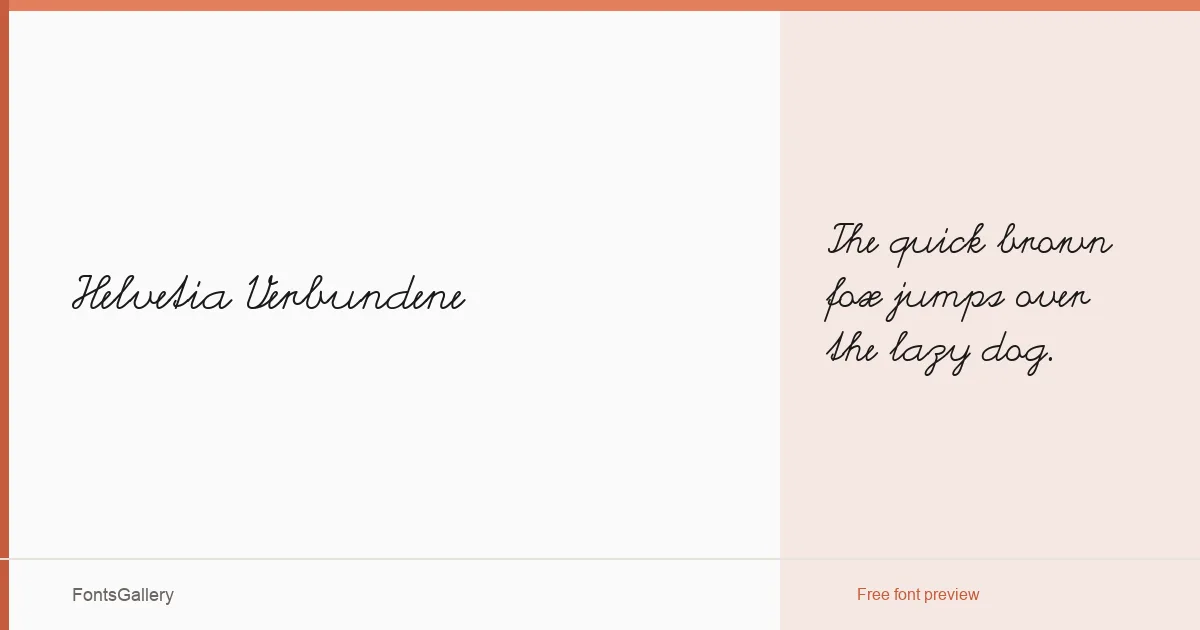
About Helvetia Verbundene Font
Helvetia Verbundene is a graceful script typeface brought to the digital world by Peter Wiegel, rooted in an original typeface design by Carl Albert Fahrenwaldt dating back to 1901. Published through Peter Wiegel's foundry, this font carries the charm and refinement of early twentieth-century calligraphic tradition. Its historical lineage gives it an enduring quality that feels both timeless and sophisticated.
As a script typeface defined by elegant, romantic, and classic qualities, Helvetia Verbundene features flowing, connected letterforms that evoke the artistry of fine penmanship. The characters display graceful curves and delicate strokes that are characteristic of formal calligraphic scripts, lending every line of text a sense of warmth and refinement. This harmonious blend of classic structure and romantic flourish makes it a distinctly expressive display font.
Helvetia Verbundene is ideally suited for weddings, invitation cards, greeting cards, certificates, and social media graphics where an air of elegance and sentimentality is desired. Its flowing script style brings a personal, handcrafted feel to any formal or celebratory design project. For complementary pairings, it works beautifully alongside Aresink or the clean neutrality of Helvetica to create a balanced typographic hierarchy.